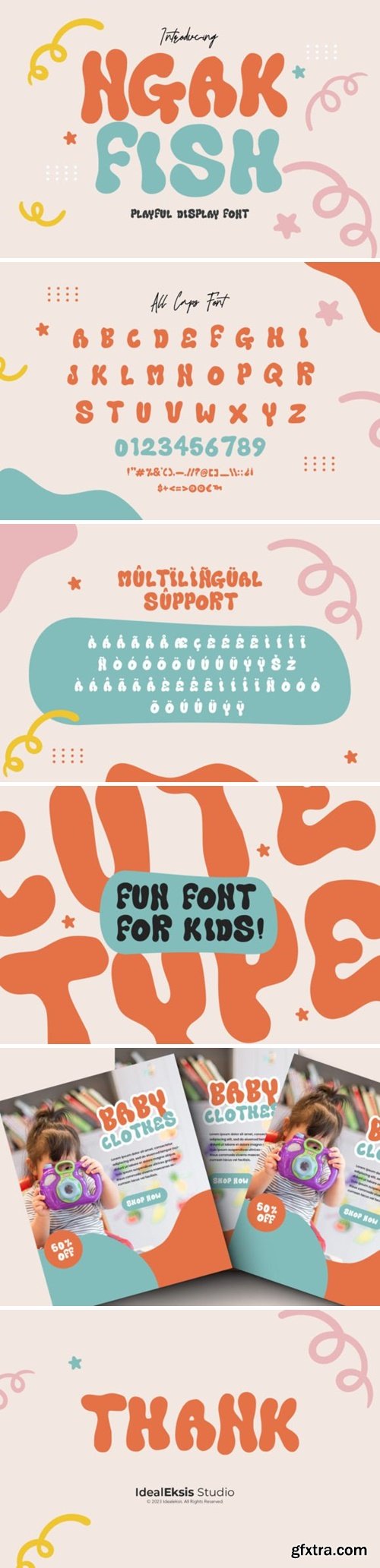
Dive into fun with Ngak Fish, a playful display font that adds a splash of whimsy to your designs! With its cheerful and lighthearted vibe, Ngak Fish is perfect for adding a touch of joy to anything from invitations to posters. Let your creativity swim freely as you use this font to bring a playful and energetic feel to your projects. It’s a font that doesn’t take itself too seriously, making it an ideal choice for a variety of creative endeavors.